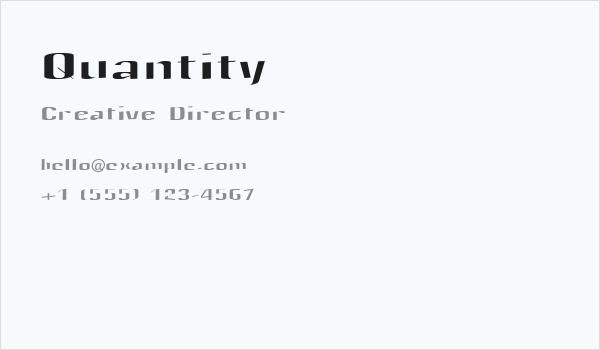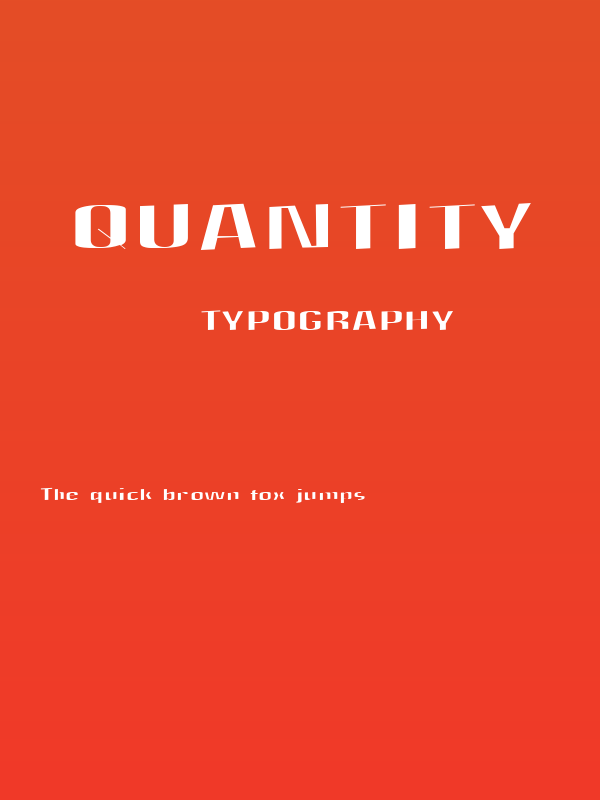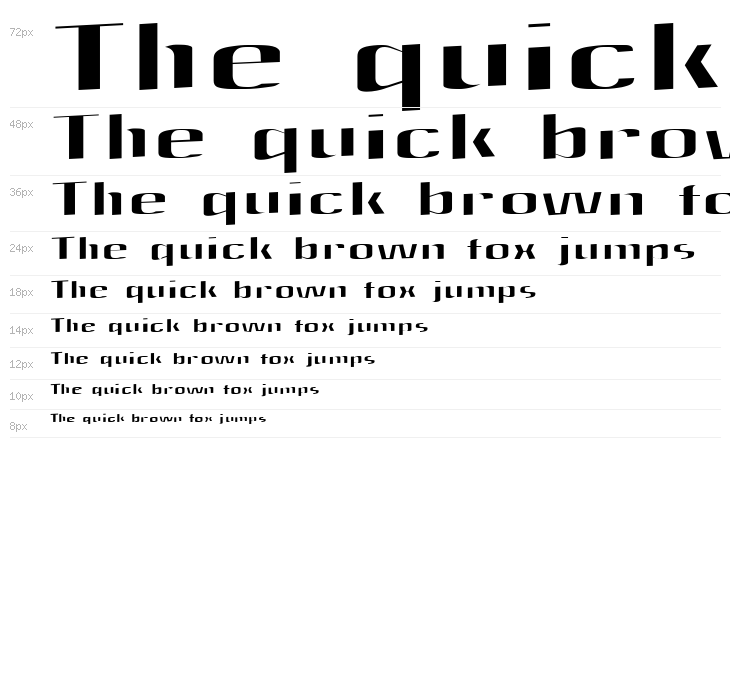
Quantity Font
Quantity Description
This font features a bold and modern design with a distinct geometric influence. The characters are constructed with sharp angles and clean lines, creating a dynamic and futuristic appearance. The uppercase letters are particularly striking, with a strong presence and a sense of movement. The lowercase letters maintain the same angular style, providing a cohesive look across the typeface. Numbers and special characters are designed with the same attention to detail, ensuring versatility in various applications. The font's unique style makes it suitable for projects that require a contemporary and edgy aesthetic.
| Proposed Projects | Ideal for branding, advertising, posters, and digital media that require a modern and striking look. |